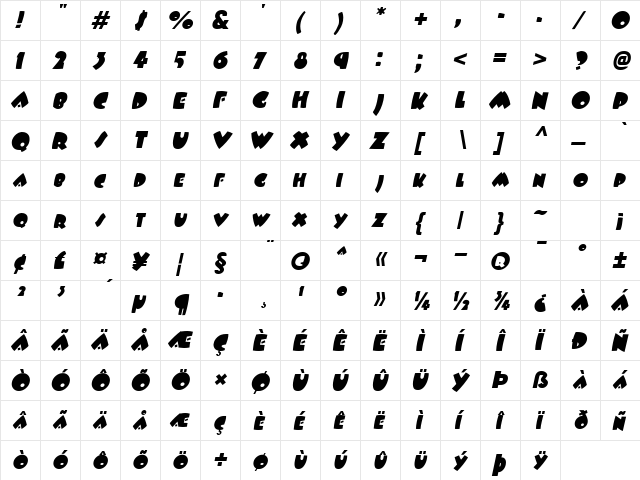
Wampum Italic
Design Context for Wampum Typeface
Wampum is a composed and adaptable typeface that performs quietly and consistently across a wide range of design contexts. Its italic angle brings a sense of urgency and motion to the letterforms.
Pro Tip: Try Wampum for annotation and caption copy alongside an upright companion — the contrast in angle creates a dynamic but ordered typographic system.